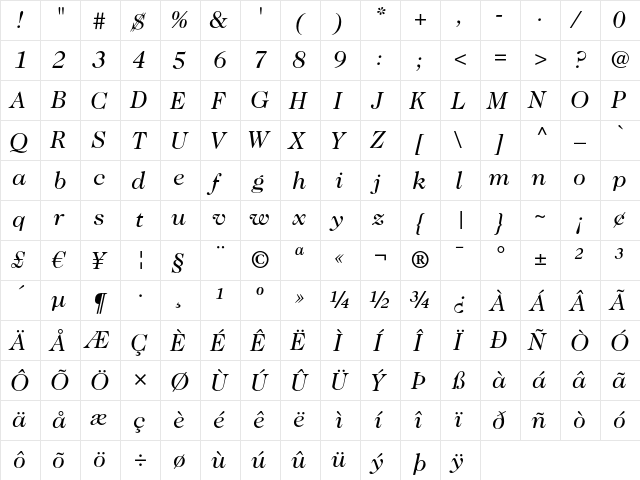
ITC Caslon 224 LT Book Italic
Design Context for ITC Caslon 224 LT Typeface
ITC Caslon 224 LT offers clean, dependable letterforms without strong stylistic allegiance, making it a practical choice for designers who need flexibility. Its italic angle brings a sense of urgency and motion to the letterforms. Its slender proportions lend an understated elegance to any composition.
Pro Tip: Use ITC Caslon 224 LT for emphasis, pull quotes, and subheadings where its slanted energy can add rhythm to the layout.